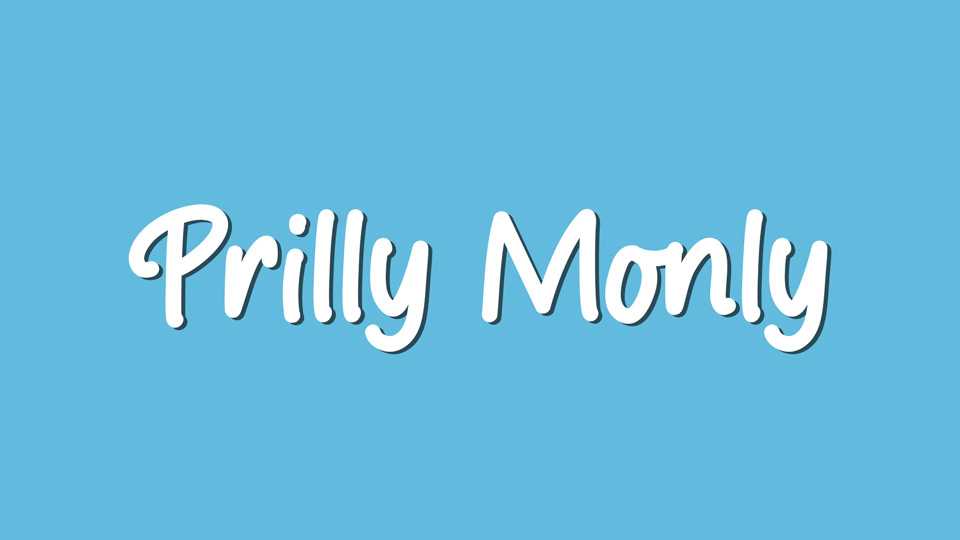
Download Prilly Monly font, a quirky and fun hand lettered typeface with a natural flow. Prilly Monly is perfect for adding a personal touch to any project, whether you’re writing a comic book, crafting a design, or jotting down some notes.